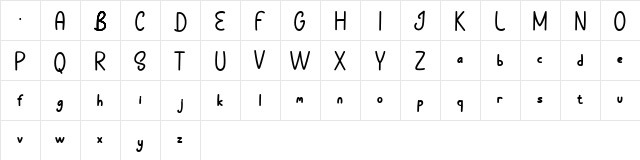
Make Wish Regular
Designer: Flawless And Co
Design Context for Make Wish
Make Wish is a composed and adaptable typeface that performs quietly and consistently across a wide range of design contexts.
Pro Tip: Use Make Wish in both headline and body roles to test its range before committing to a single application.